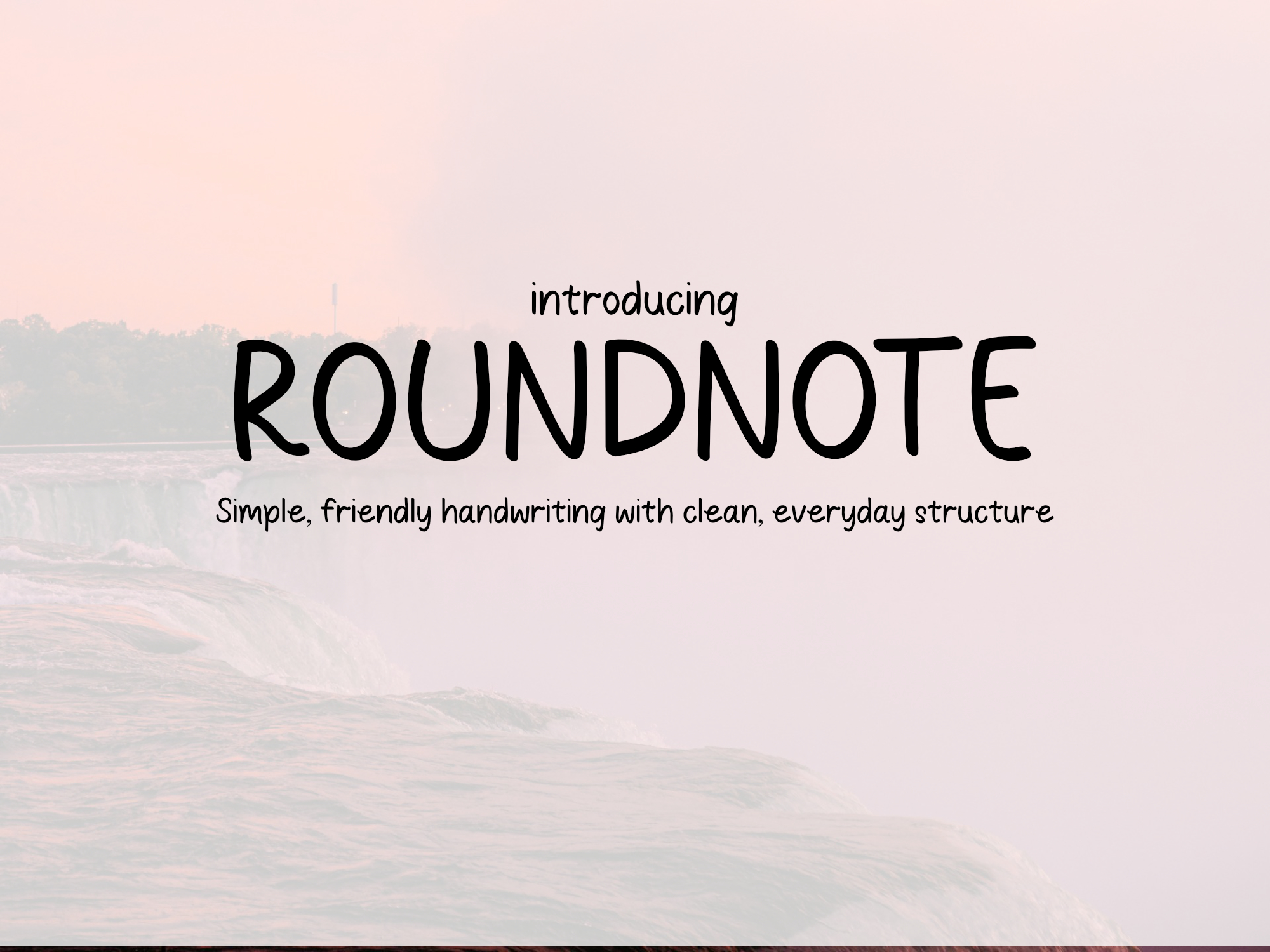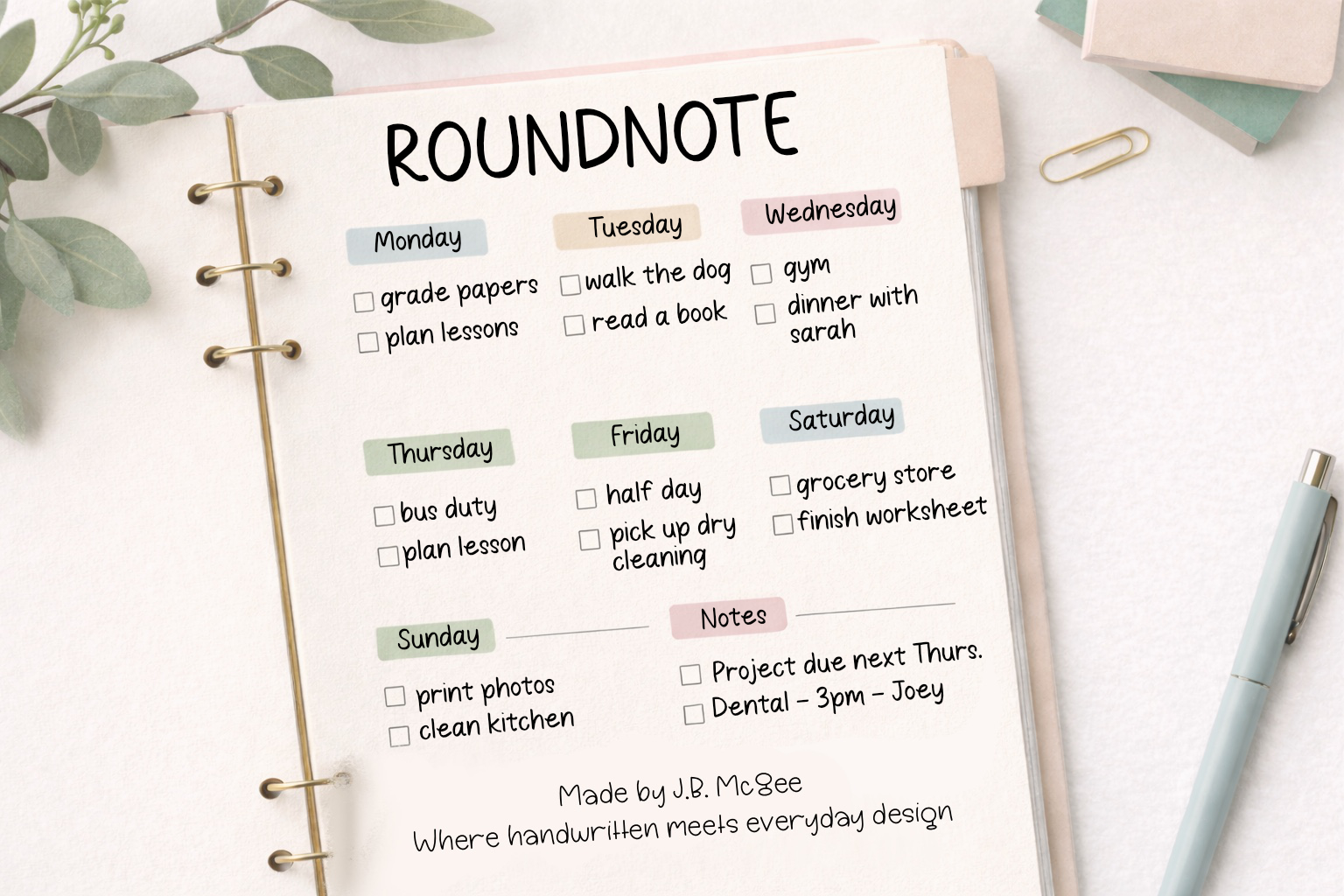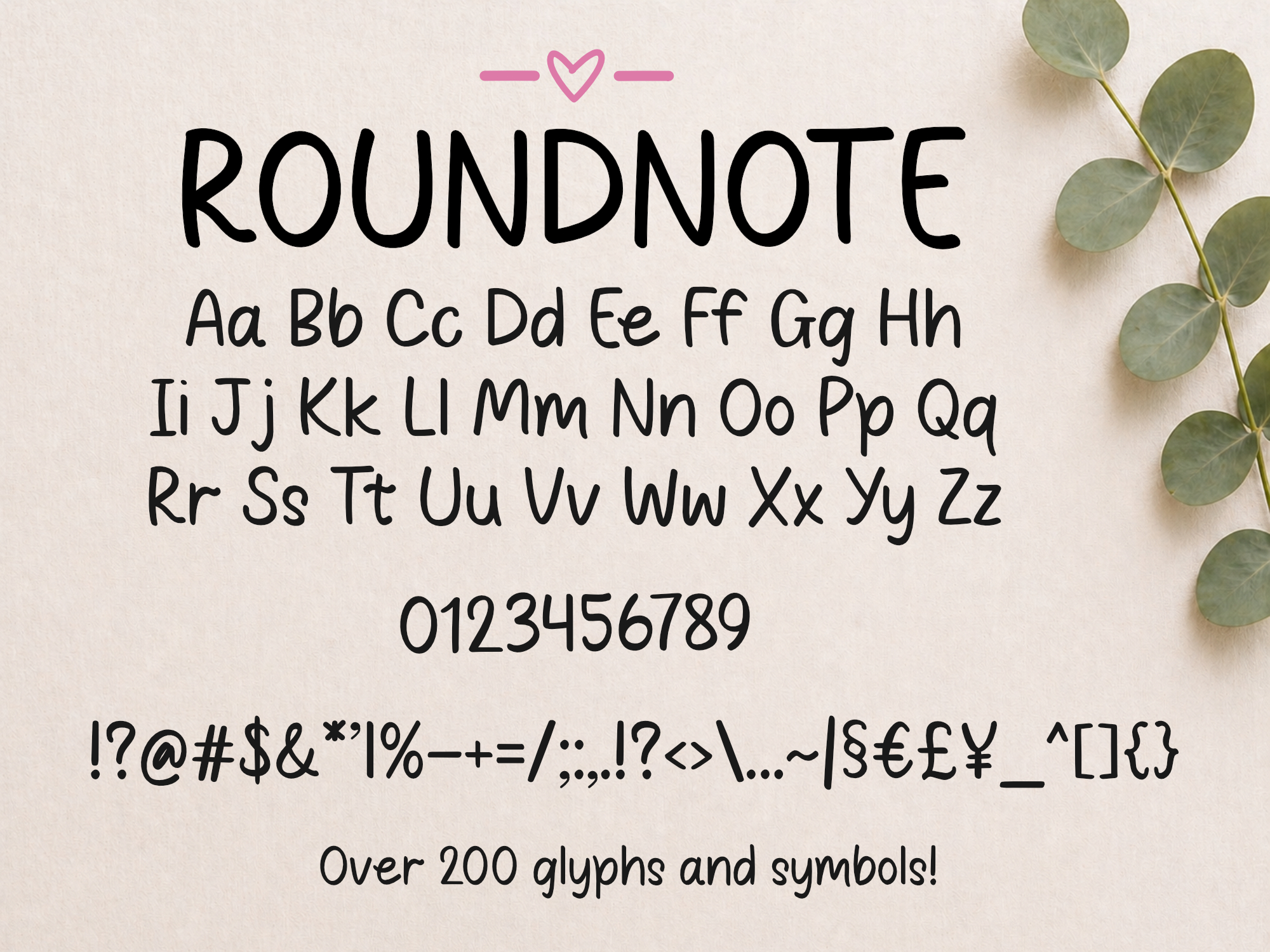
Roundnote Font
Monoline. Handwritten. Clean.
Roundnote Print is a clean, rounded handwritten font that brings a soft and easygoing feel to any project. Each letter is slightly curved and balanced, giving it a natural handwritten look while still staying neat and highly readable.
It works especially well for planners, classroom materials, stickers, and everyday designs where you want something warm and inviting without feeling messy or overly stylized. The consistent weight and open letterforms make it a reliable go-to for both print and digital use.
This font includes extended characters, punctuation, and numbers, making it a practical choice for a wide range of creative projects.
Style Notes:
Rounded, soft edges
Clean handwritten print style
Consistent monoline weight
Friendly and approachable tone
Best Uses:
Planner pages and worksheets
Teacher resources
Stickers and small business packaging
Social media graphics
Everyday branding and printables
• Uppercase and lowercase letters
• Numbers and punctuation
• Symbols and special characters
• Standard multilingual support (as shown in previews)